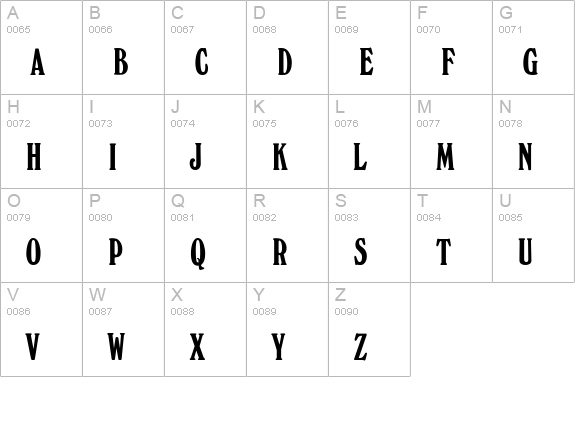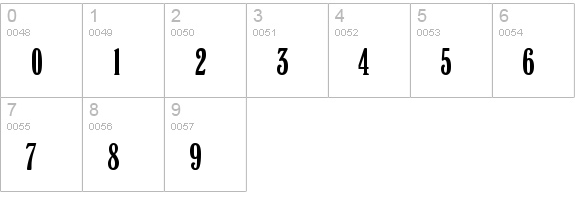
Windsor MN Elongated Font Details
Windsor MN Elongated font is a stunning display typeface that exudes elegance and sophistication. Its elongated letterforms give off a unique and stylish vibe, making it perfect for headings, titles, and other design projects that require a touch of class. The font's intricate details and graceful curves make it stand out from the crowd, adding a touch of sophistication to any design. What sets Windsor MN Elongated font apart is that it is available for free download at FontsMarket.com. This means that you can easily access this beautiful typeface to enhance your projects without any cost. Whether you're working on branding, invitations, posters, or any other creative endeavor, Windsor MN Elongated font is sure to elevate your design and leave a lasting impression. Download it today and add a touch of elegance to your work!